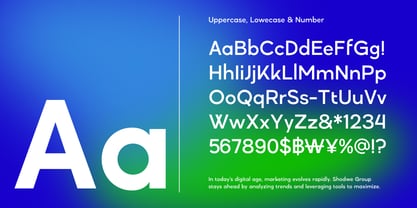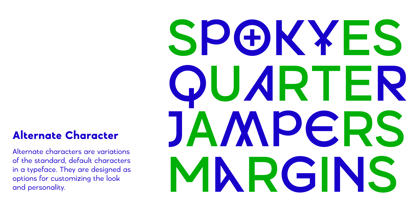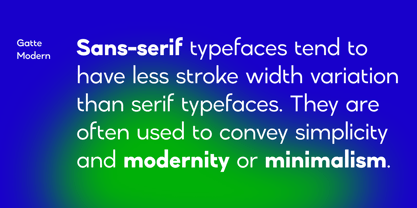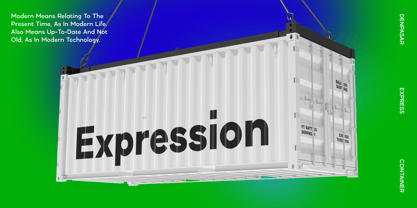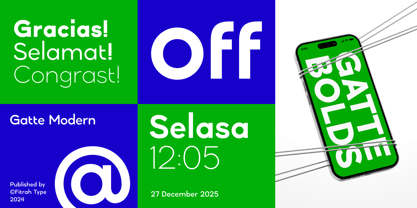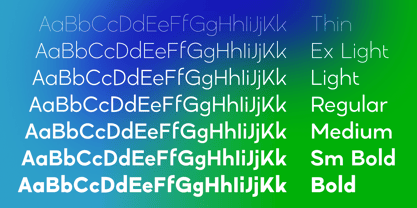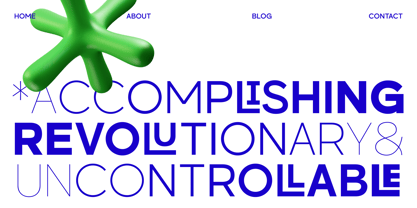
Gatte Modern Variable
by Fitrah Type
The Gatte Modern Variable Font Family was designed by Moch Fitrah Hidayat and published by Fitrah Type. Gatte Modern Variable contains 1 styles. More about this family
Gatte Modern is a sans serif font family featuring 7 weights. Designed with simplicity and minimalism in mind, it exudes elegance and sophistication. This typeface is optimized for large sizes, making it perfect for impactful designs. Gatte Modern is ideal for a variety of applications, including merchandise design, social media graphics, marketing posts, product packaging, and branding projects. It supports uppercase and lowercase letters, numerals, and punctuation, ensuring comprehensive typographic versatility for your creative needs.
Designers: Moch Fitrah Hidayat
Foundry: Fitrah Type
Gatte Modern Variable